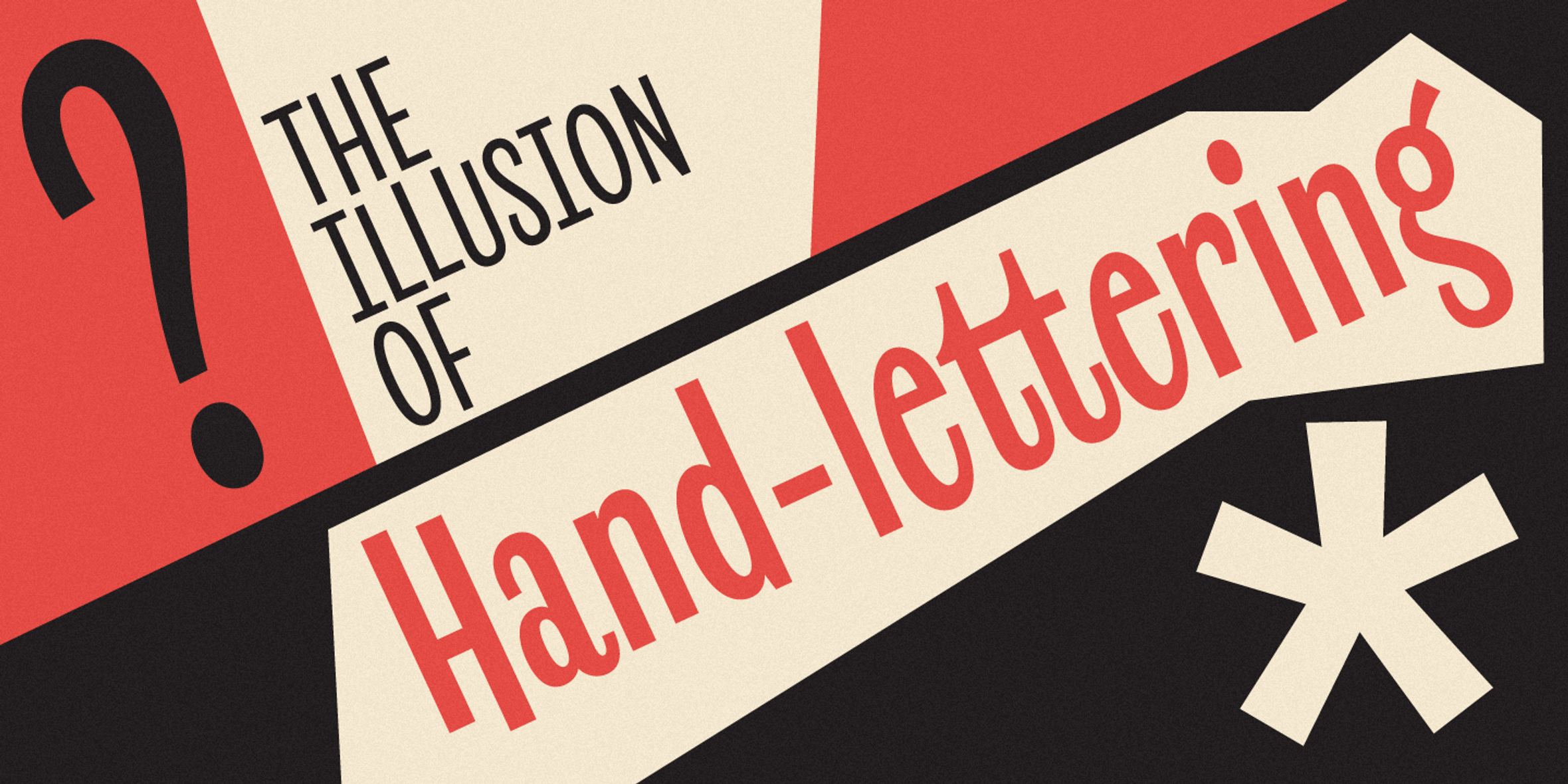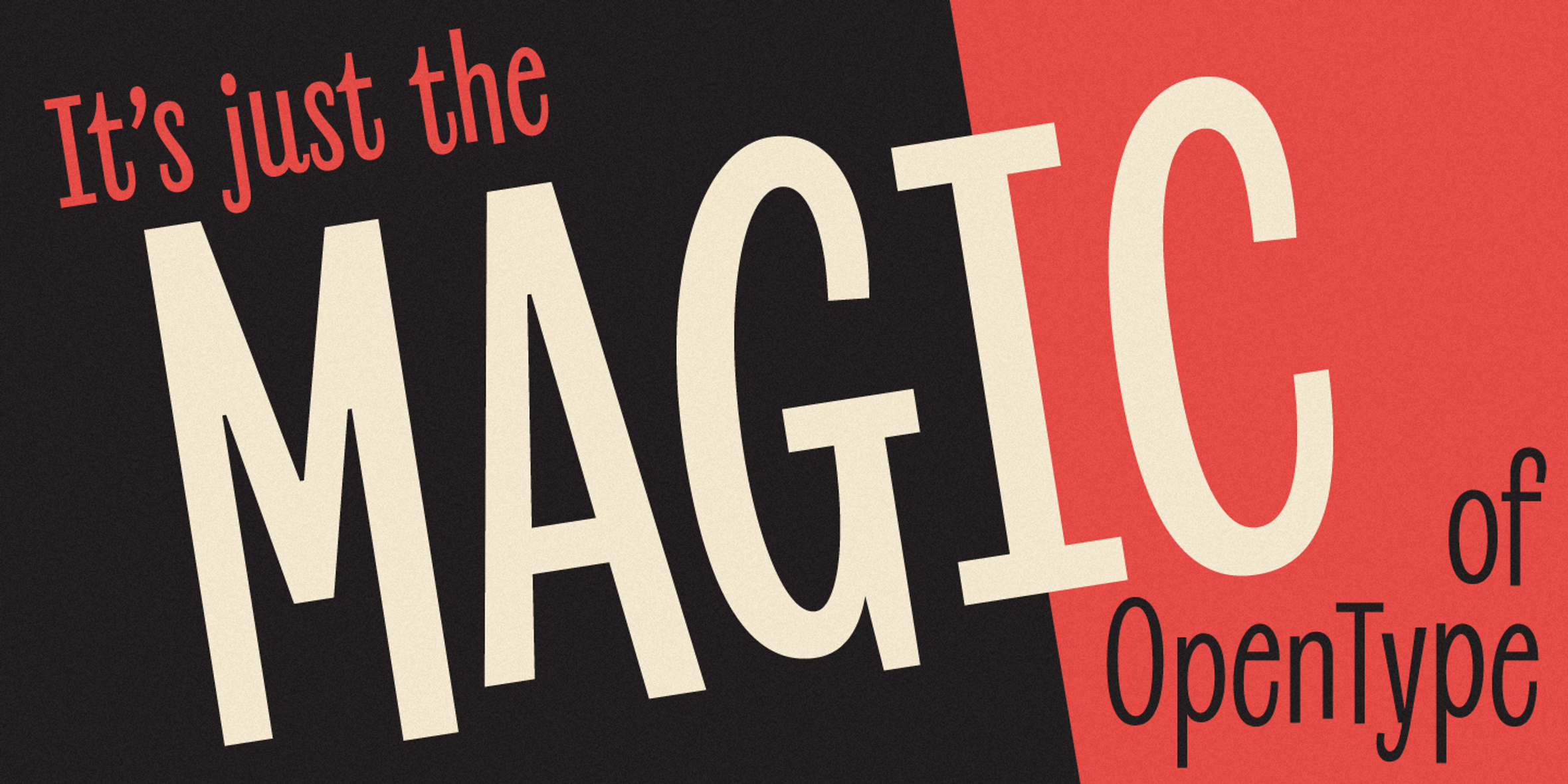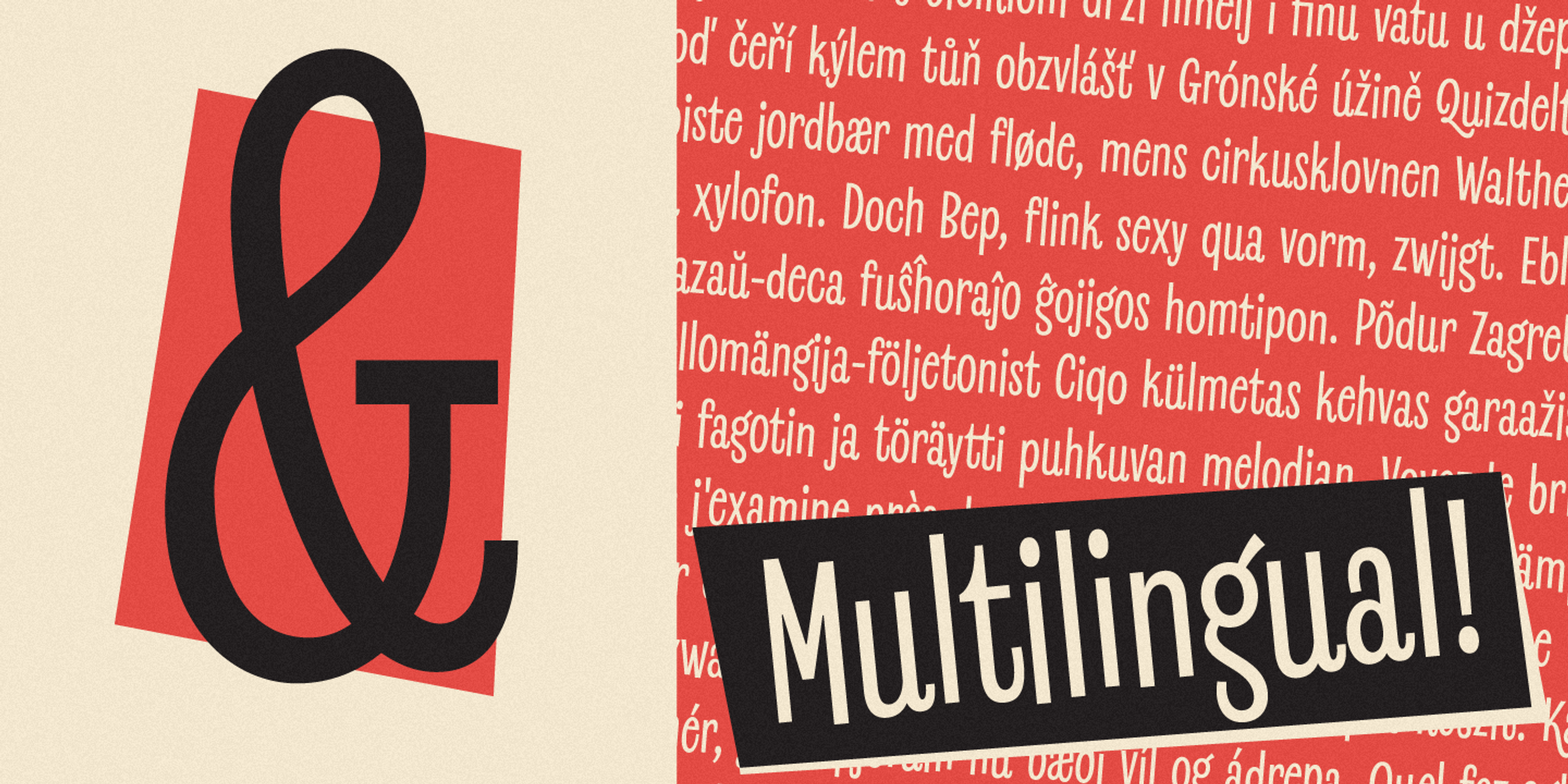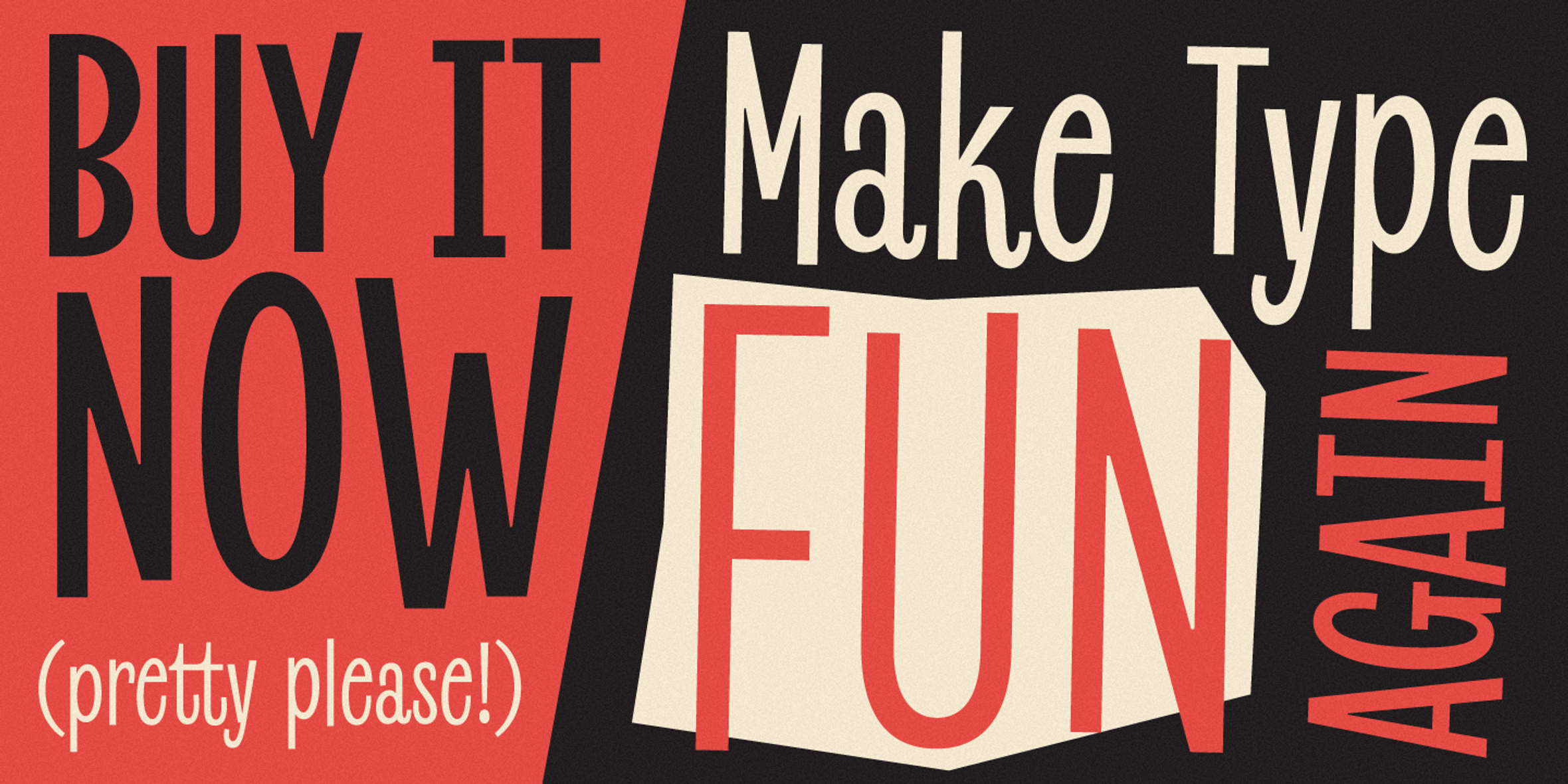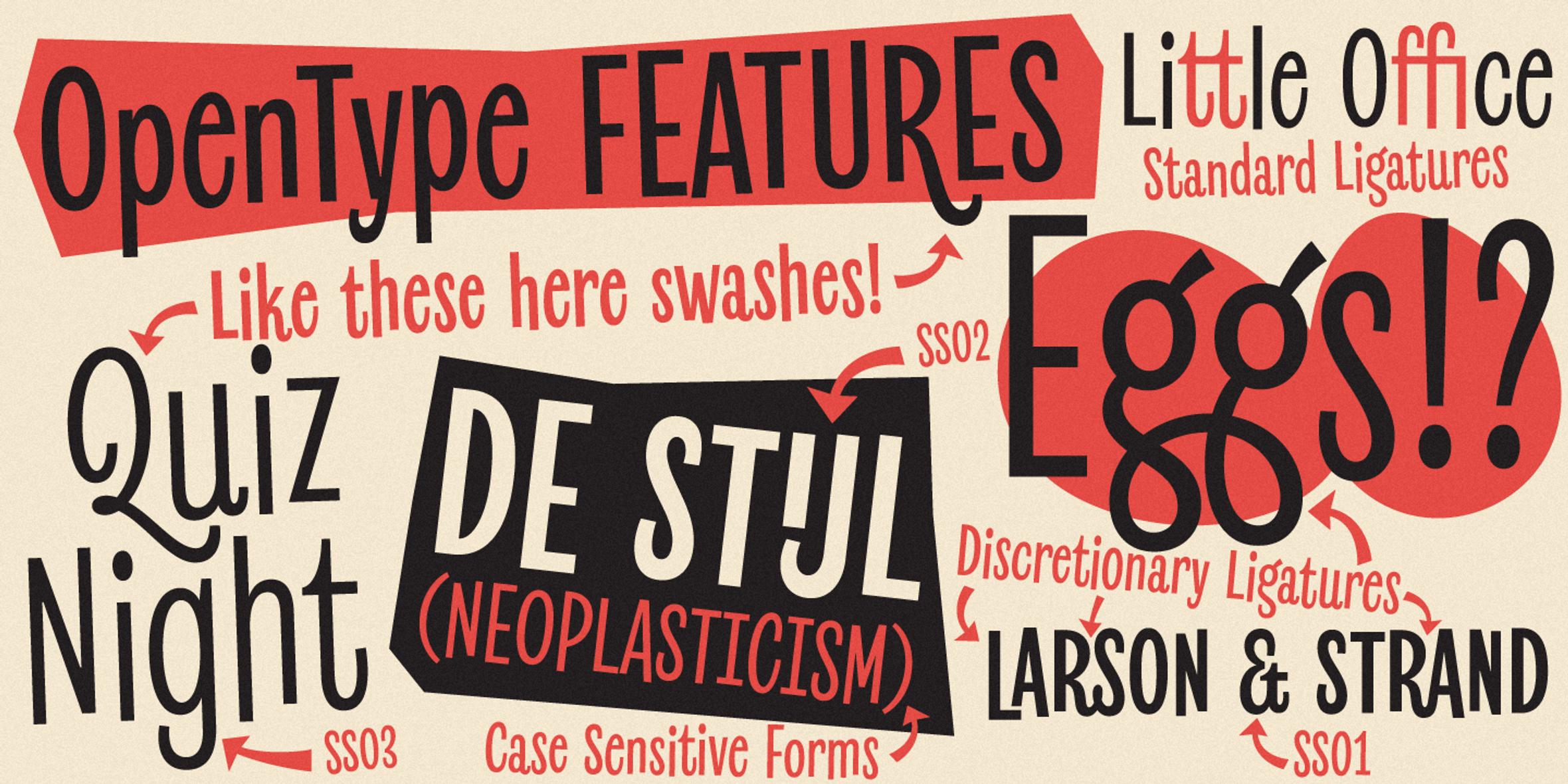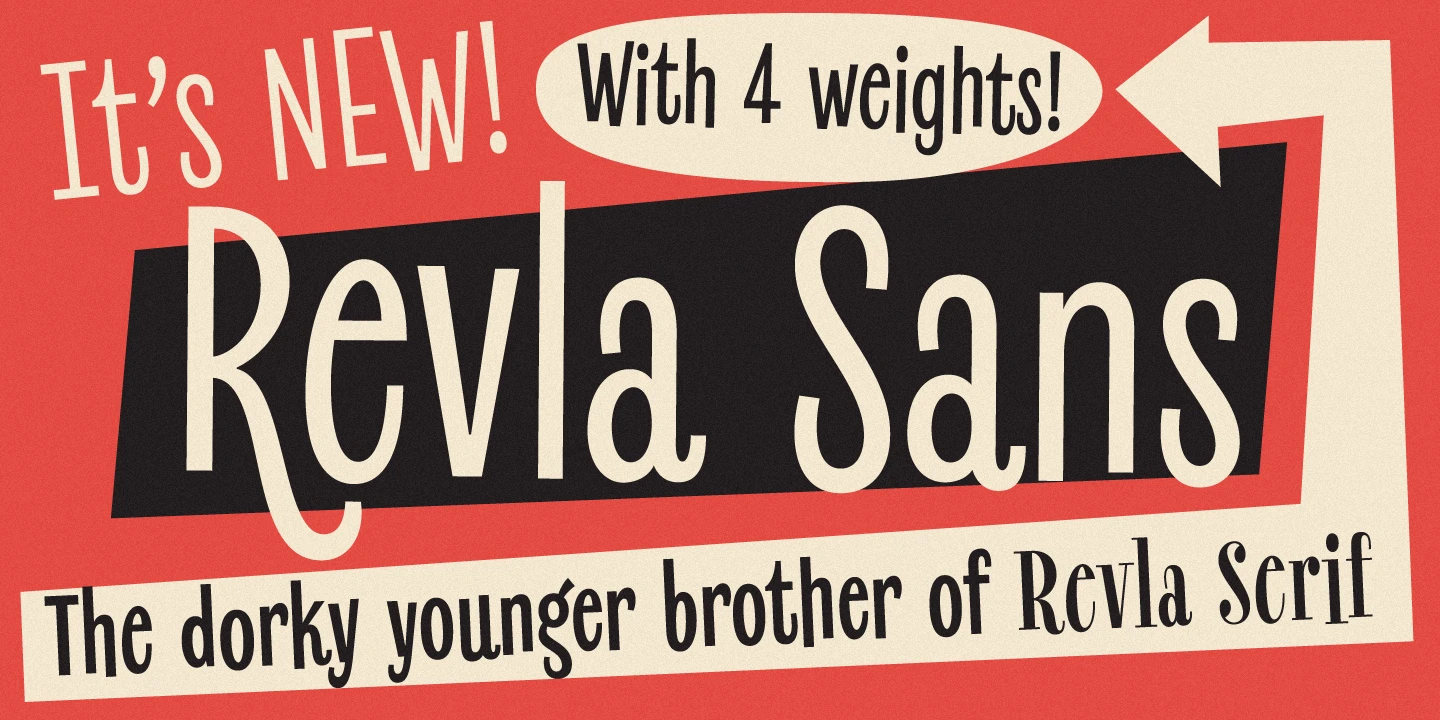
Revla Sans Font Family
Revla Sans
Revla Sans is part of a condensed superfamily designed to put the fun back in your text! All five families share the same structure but boast unique personalities tailored for different uses. Round, Sans, Serif, Slab with bouncy baselines, and a more subdued Sans Text created for slightly longer reads. Each works fantastically well independently or with other members of the family. The possibilities are endless for graphic designers and typographers looking to infuse their work with character and charm.
- Common Ligatures
- Discretionary Ligatures
- Fractions
- Ordinal Numerals
- Stylistic Alternates
- Swashes